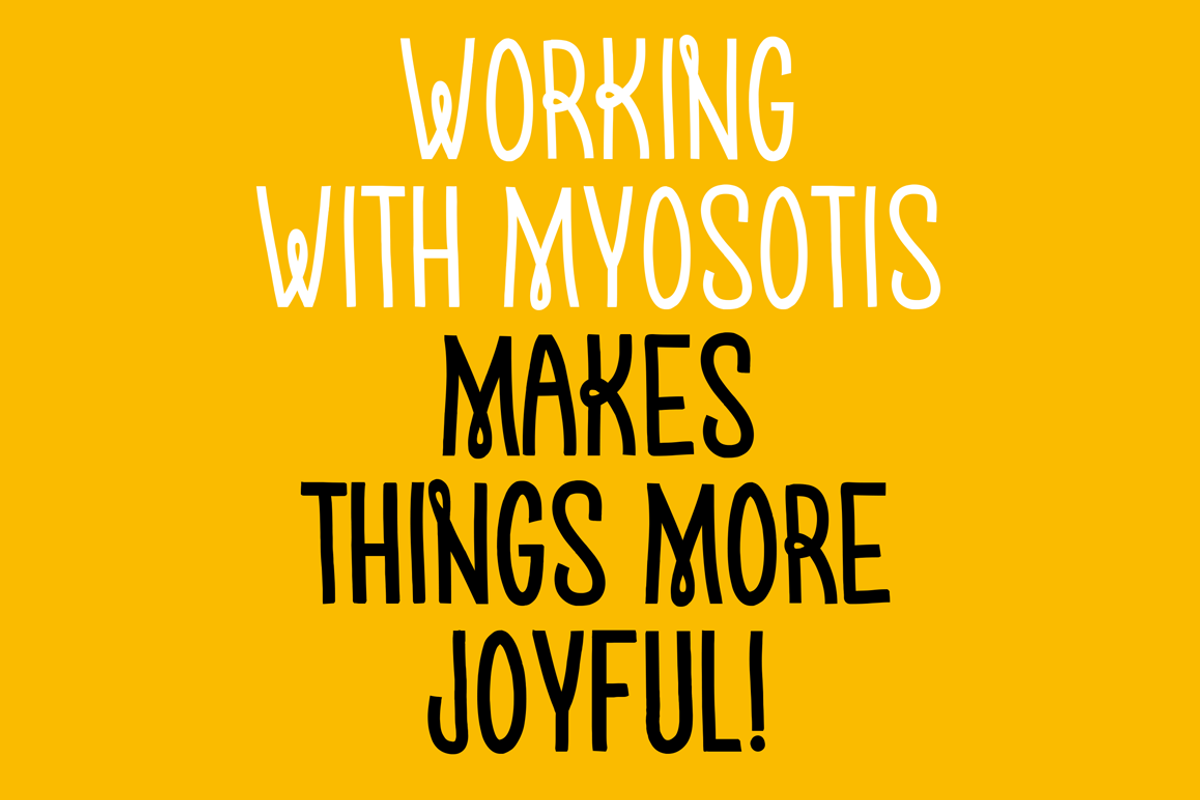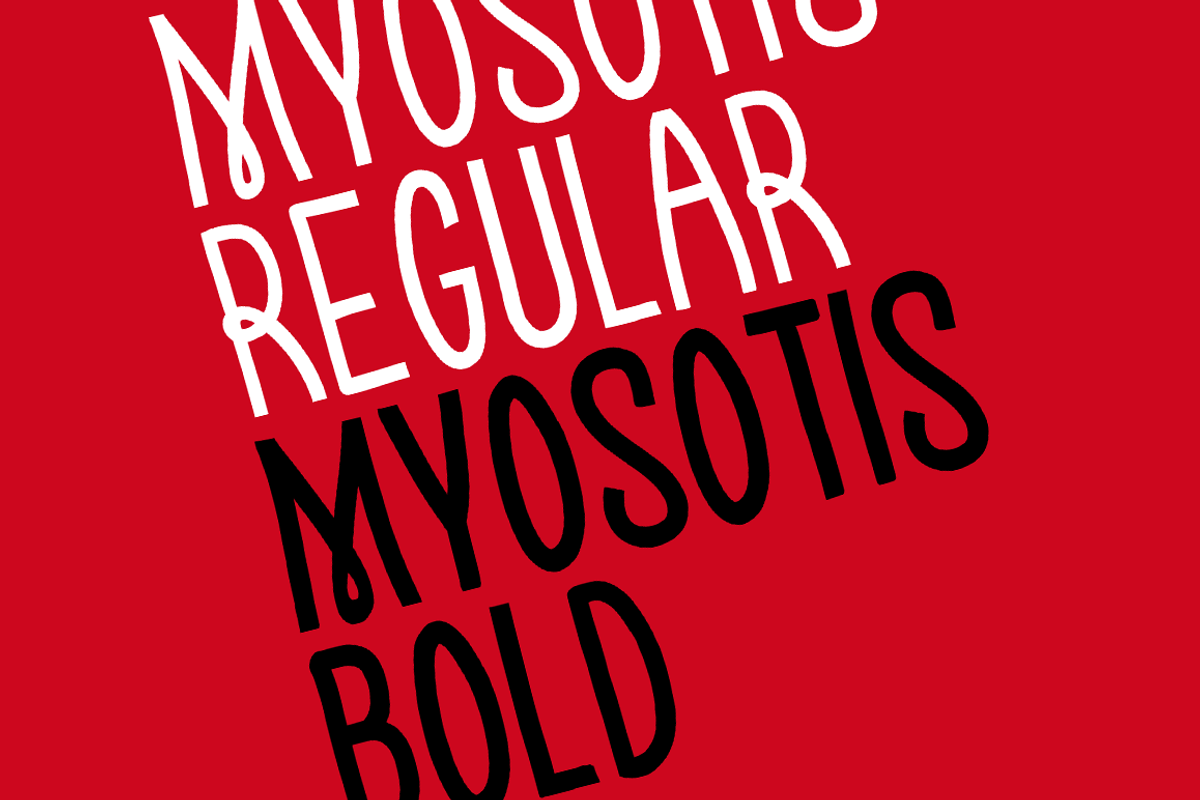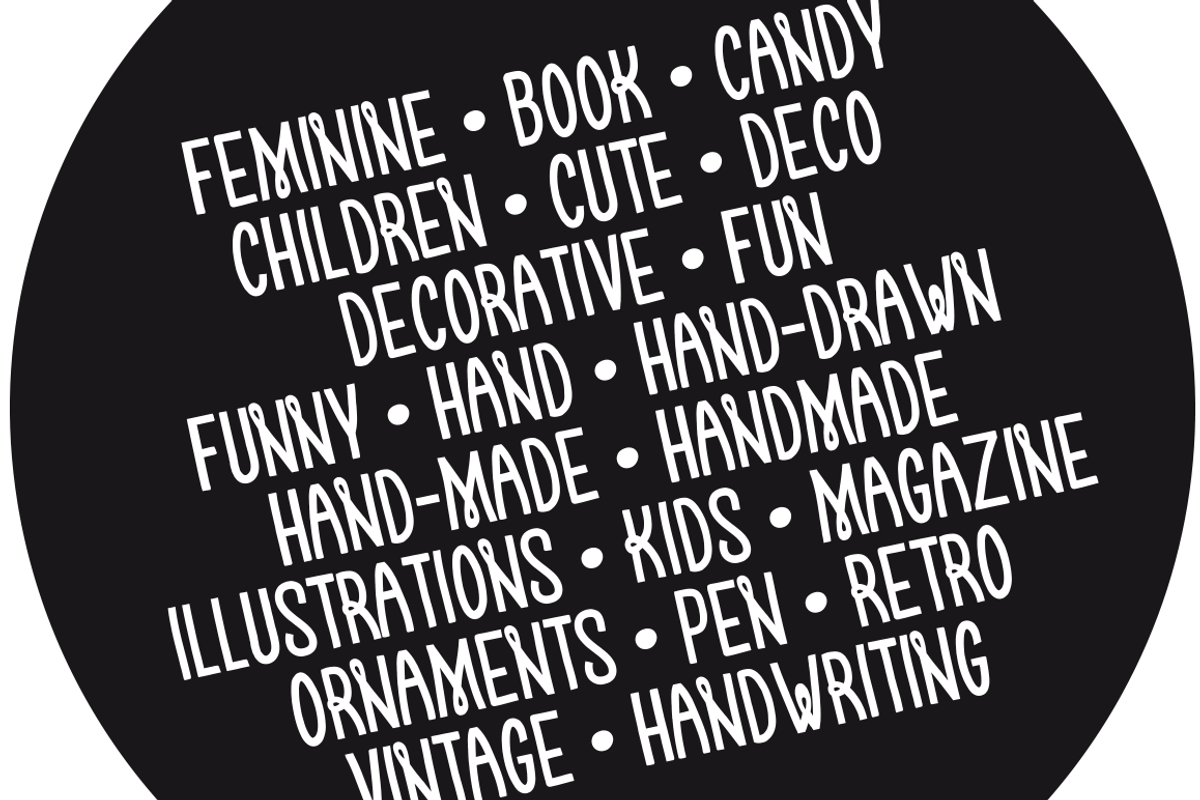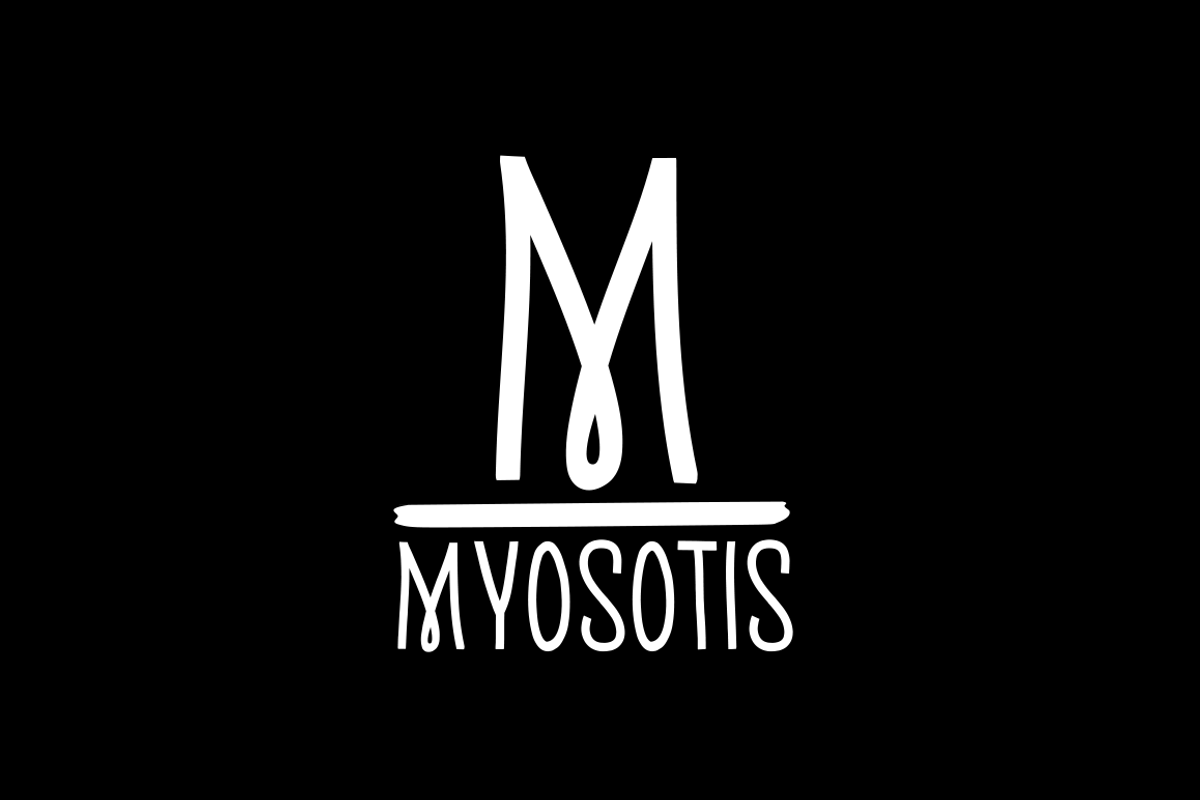
Myosotis
Myosotis is a hand made font ideal for your graphic project. Usage recommendations: Title, short text, children’s book, poster, book cover, brochure.